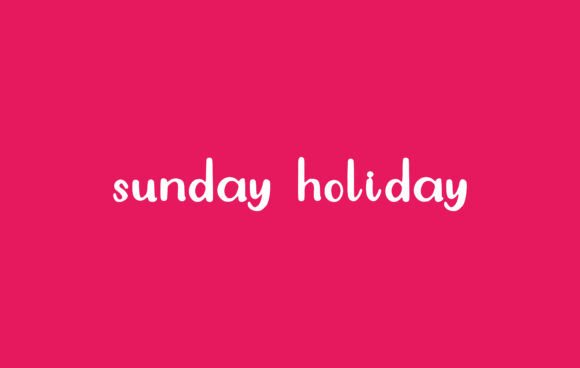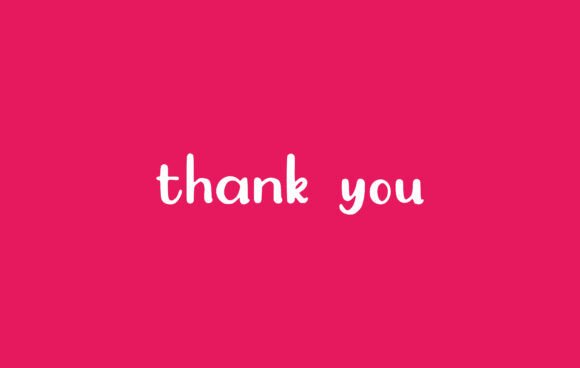
Blenny Font: Elevate Your Designs with a Romantic Touch
In the world of typography, a good font can make all the difference in bringing your creative ideas to life. If you’re a designer or crafter looking for a unique and authentic handwritten font with a romantic touch, look no further than Blenny Font. This beautifully designed font is sure to capture your heart and take your designs to new heights.
What Makes Blenny Font Special?
Blenny font is an expertly crafted handwritten font that exudes a sense of romance and elegance. Its authentic feel makes it perfect for a wide range of design projects, from magazine headlines and social media graphics to branding, wedding invitations, and cards. The font’s legibility and versatility make it an excellent choice for both title and body text, allowing you to use it in various contexts without sacrificing readability or style.
Key Features of Blenny Font
- Authentic Handwritten Style: Blenny font boasts a genuine handwritten look that adds a personal touch to your designs.
- Romantic Touch: The font’s elegant and flowing lines evoke a sense of romance, making it ideal for wedding-related designs, Valentine’s Day promotions, and more.
- High Legibility: Despite its ornate appearance, Blenny font remains highly legible, ensuring that your message is conveyed clearly and effectively.
- Versatility: Use Blenny font for titles, body text, or any other design element where a touch of elegance is desired.
Blenny font’s versatility makes it suitable for a wide array of design projects. Here are some ideas to get you started:
- Magazine Headlines: Add a touch of sophistication to your magazine covers or article titles with Blenny font.
- Social Media Graphics: Elevate your social media presence with eye-catching graphics featuring Blenny font.
- Branding: Establish a unique brand identity with Blenny font, perfect for logos, business cards, or letterheads.
- Wedding Invitations: Create beautiful and romantic wedding invitations that set the tone for a memorable event.
- Cards and Stationery: Add a personal touch to your greeting cards, thank-you notes, or stationery with Blenny font.
Tips for Using Blenny Font Effectively
To make the most of Blenny font, consider the following tips:
- Mix and Match: Combine Blenny font with other fonts to create visual interest and hierarchy in your designs.
- Play with Colors: Experiment with different colors to find the perfect match for your design and brand.
- Pay Attention to Spacing: Ensure adequate spacing between letters and lines to maintain readability and aesthetics.
Blenny font is a beautiful and authentic handwritten font that can elevate your designs with its romantic touch. Its legibility, versatility, and elegance make it an excellent choice for various design projects. Whether you’re a designer, crafter, or simply someone looking for a unique font, Blenny font is sure to capture your heart and inspire your creativity.